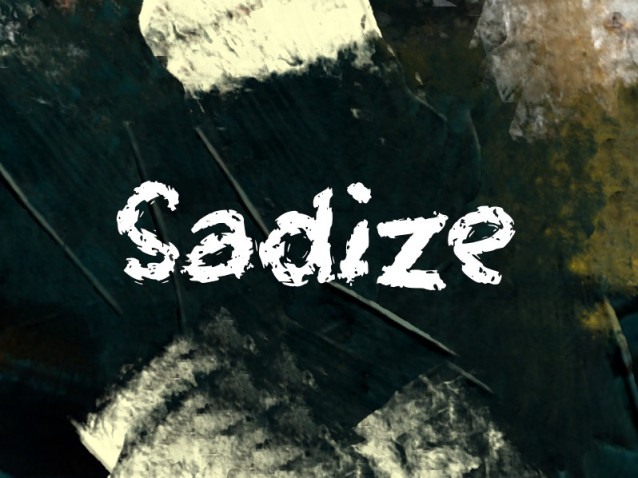
Sadize Font
Sadize Font is a distinctive display font famously recognized as the signature typeface for the Japanese visual kei band, Sadie. It captures the raw energy and dark elegance that define the band’s musical identity.